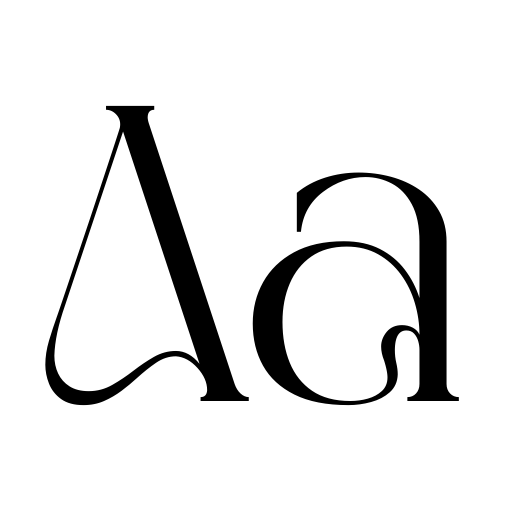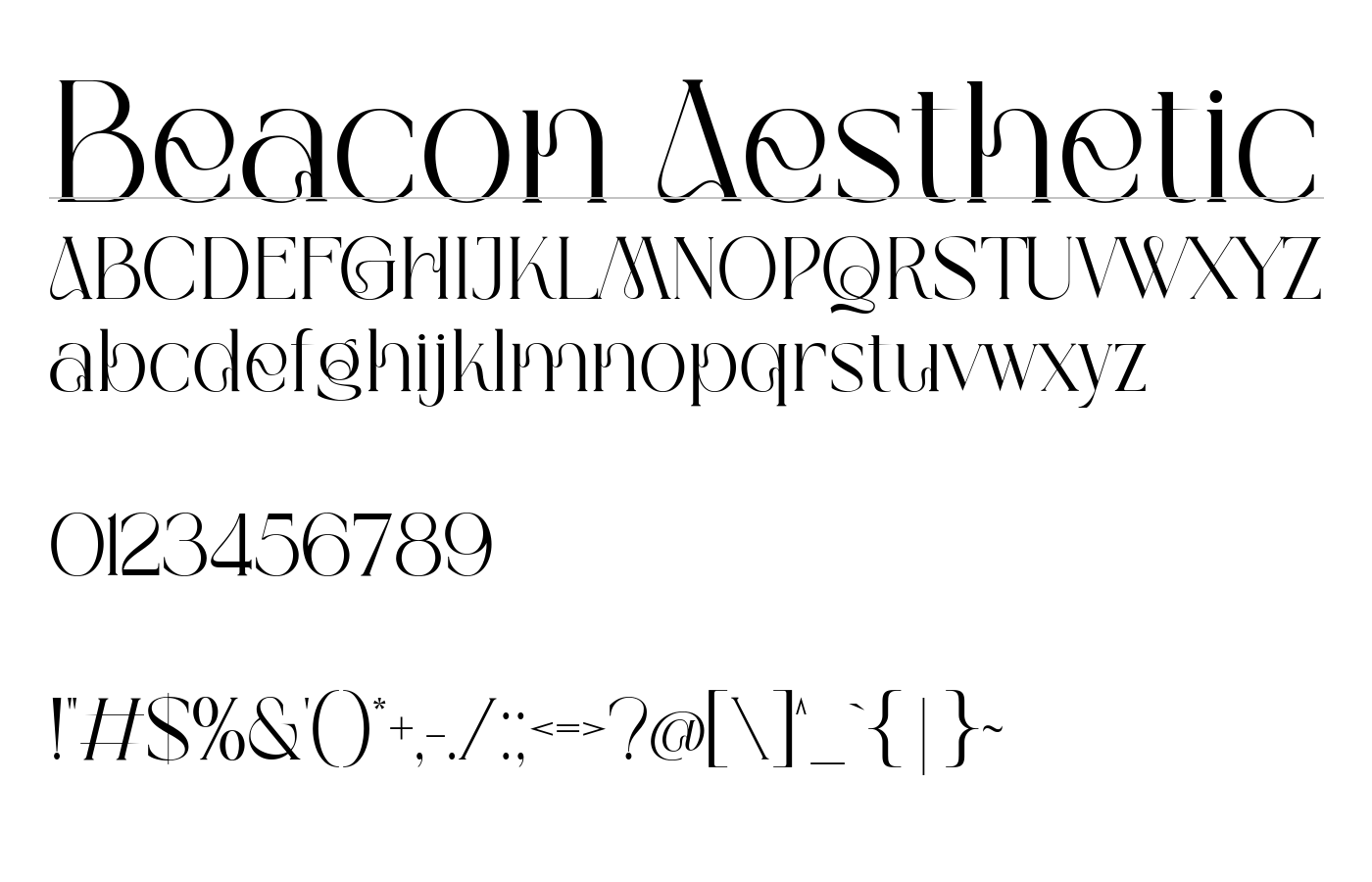
Beacon Aesthetic is a stylish serif font with a modern twist, featuring elegant, high-contrast strokes and intricately curved details that lend it a sophisticated and artistic feel. Its unique letterforms, such as the decorative terminals and fluid curves, make it perfect for luxury branding, fashion editorials, and creative headlines where a refined yet distinctive look is desired. This font blends classic elegance with contemporary flair, making it ideal for projects that want to stand out with a sense of graceful uniqueness.
Beacon Aesthetic Font
About Beacon Aesthetic Font